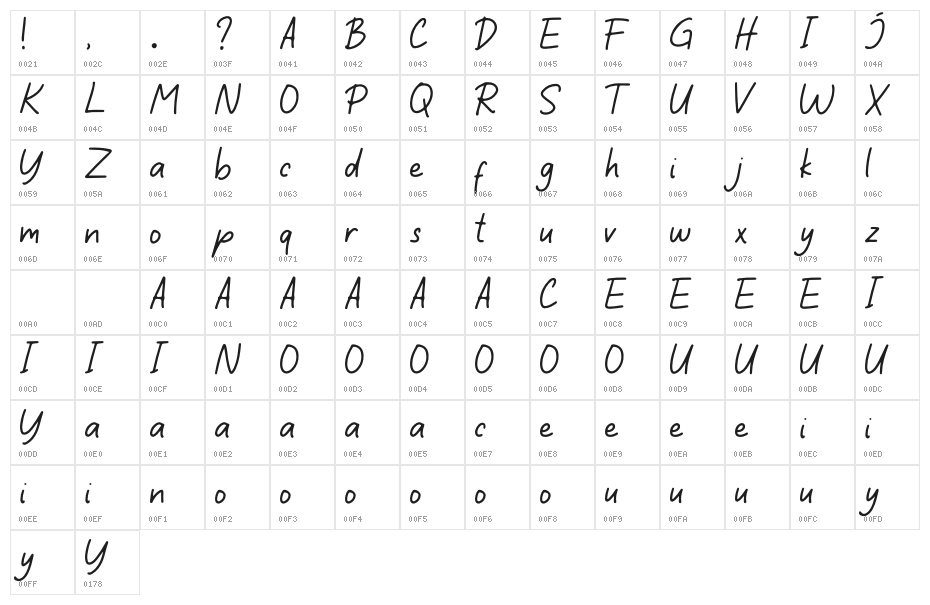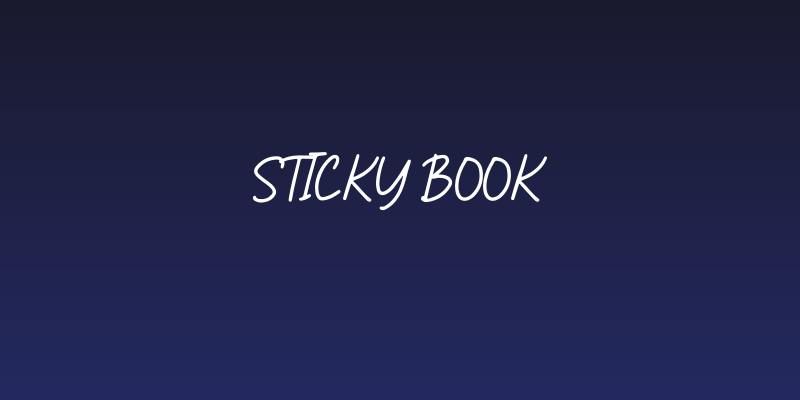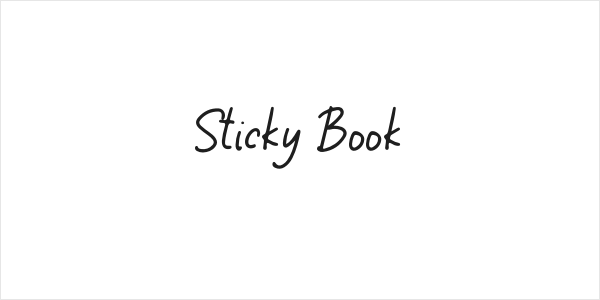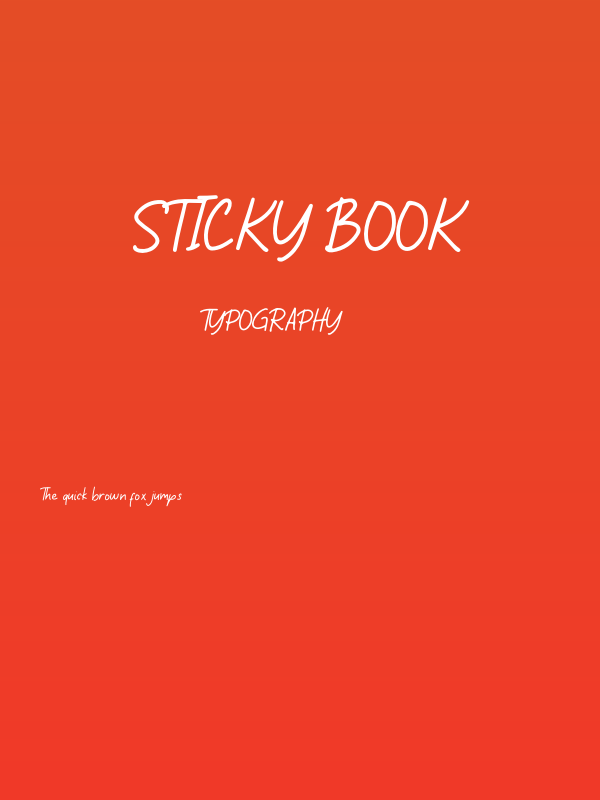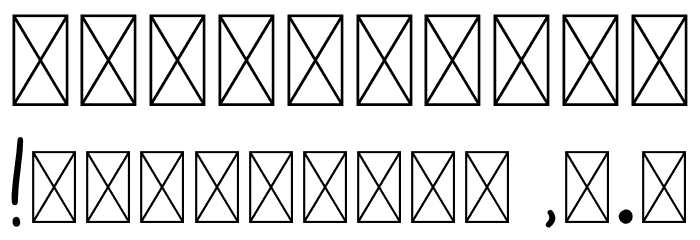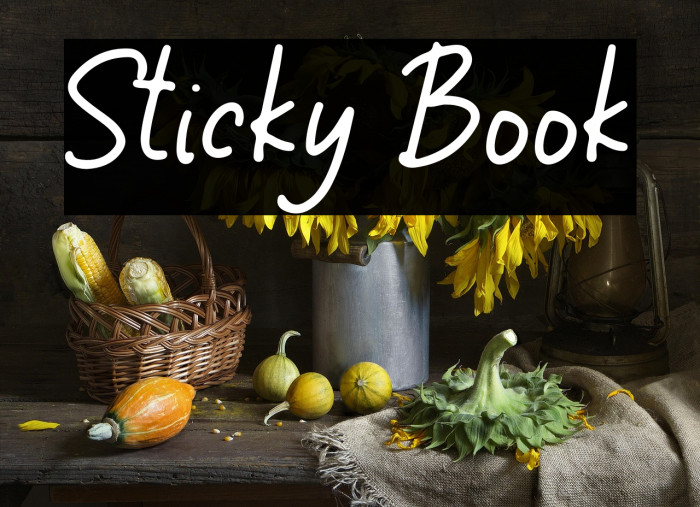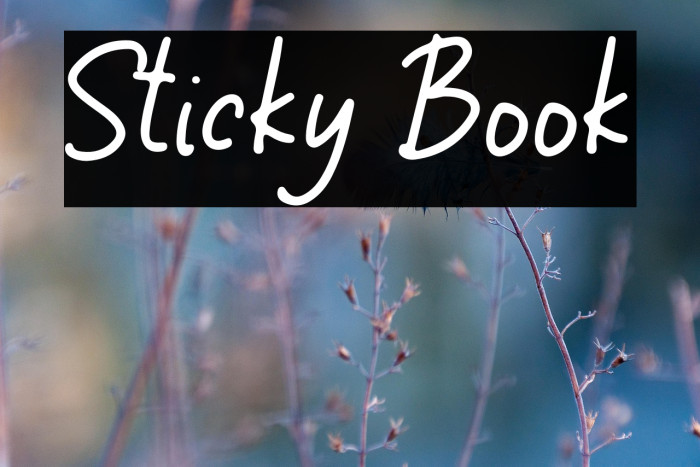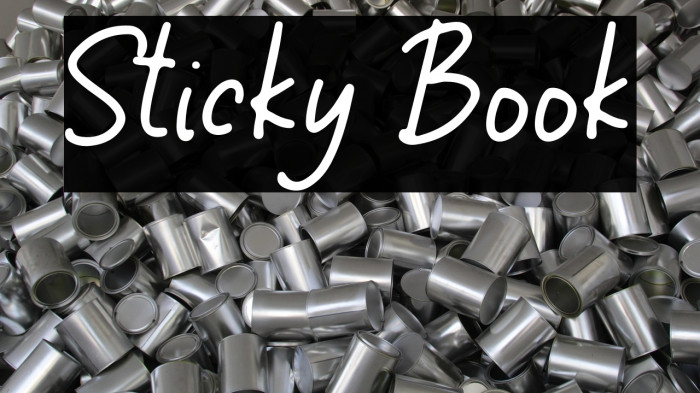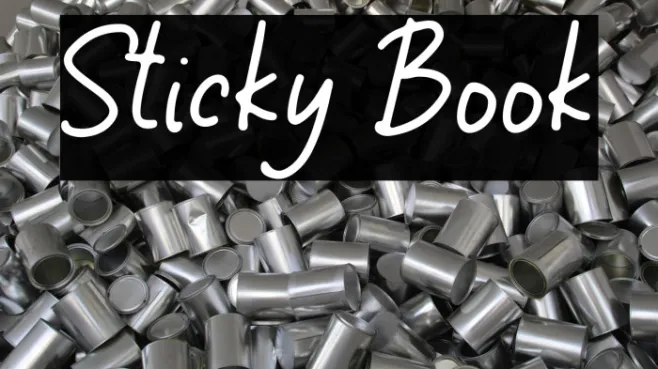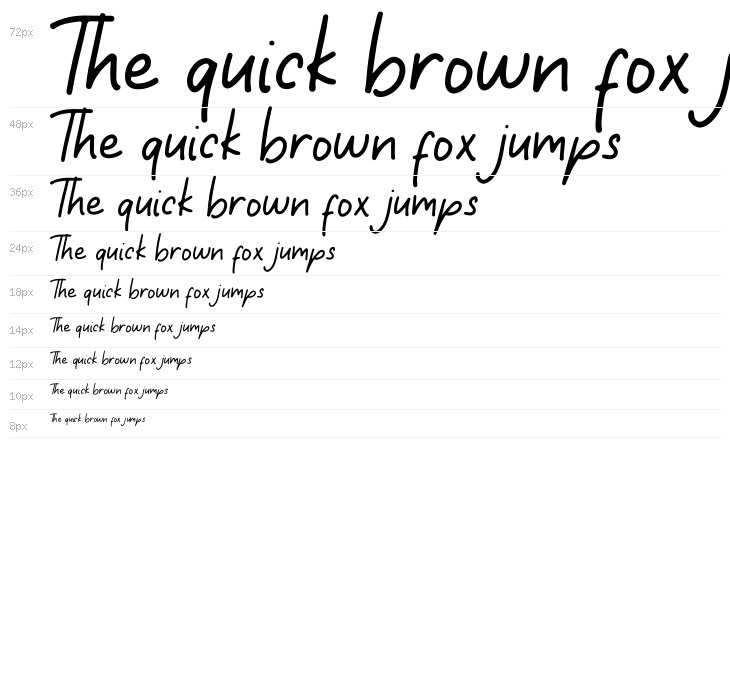
This font features a playful and casual handwritten style, characterized by its smooth, flowing lines and slightly irregular letterforms. The uppercase letters are tall and slender, with a slight slant that adds a dynamic feel. The lowercase letters maintain a consistent style, with rounded edges and a friendly appearance. The overall design is informal yet legible, making it suitable for projects that require a personal touch. The font's unique character is further enhanced by its moderate contrast in stroke thickness, which adds depth without compromising readability.
| Use Case | Headlines, Informal text, Personal projects |
| Proposed Projects | Ideal for greeting cards, personal invitations, casual branding, and social media graphics. |